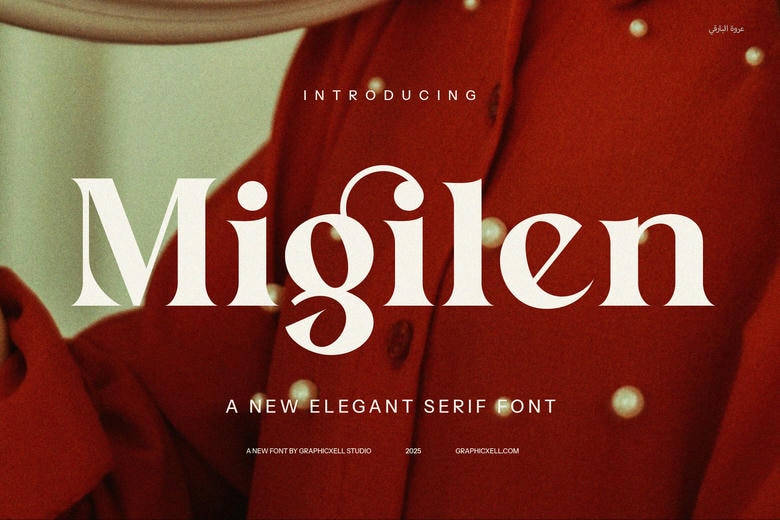
Migilen Font
Migilen is a stunningly elegant typeface designed to bring a touch of sophistication to any project. With its unique blend of modern aesthetics and timeless serif elements, Migilen stands out as the perfect choice for high-end branding, upscale websites, and premium product designs.
The font’s exquisite ligatures and alternate forms elevate its versatility, making it an ideal candidate for logos, advertisements, magazines, and boutique marketing materials.
Migilen Serif Font